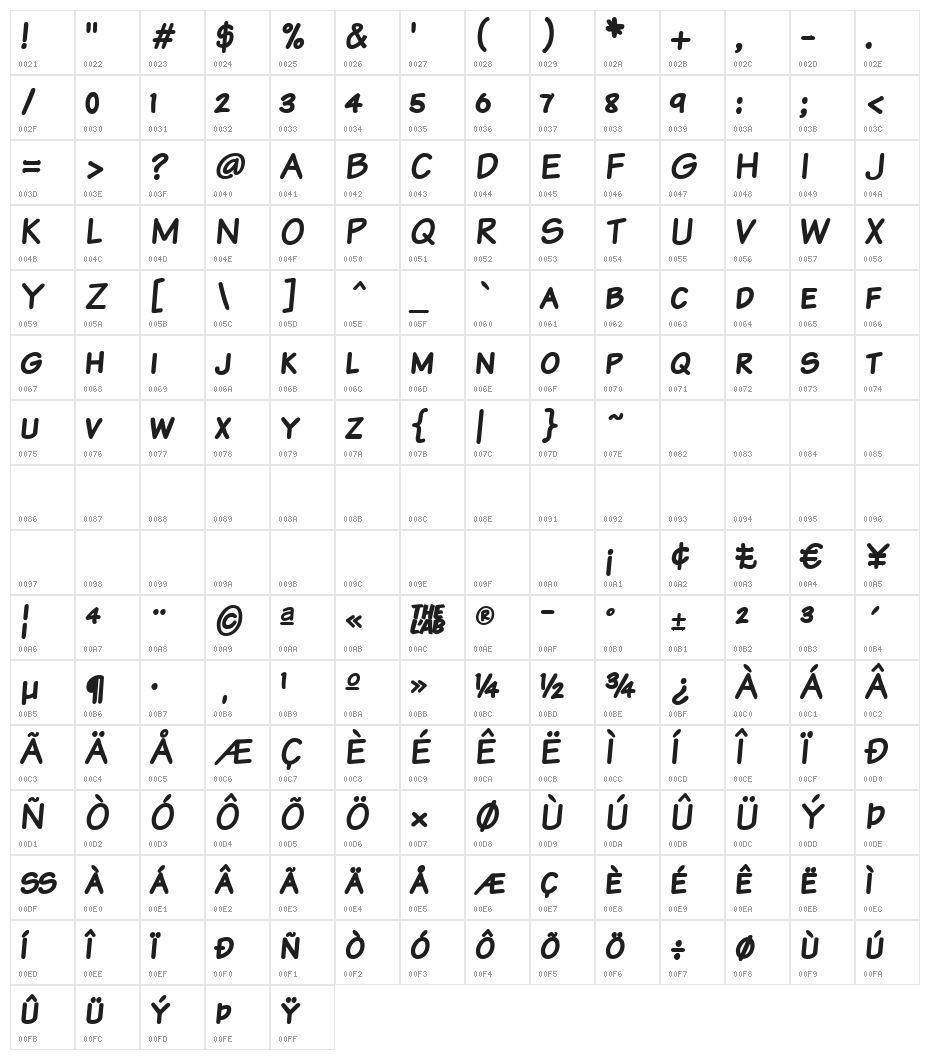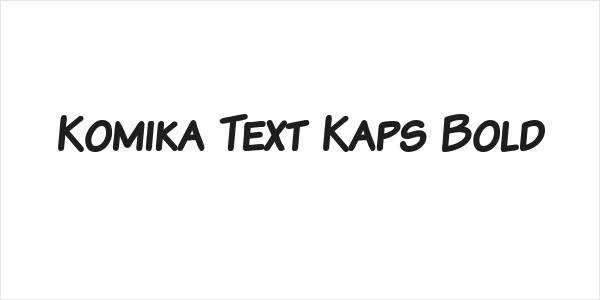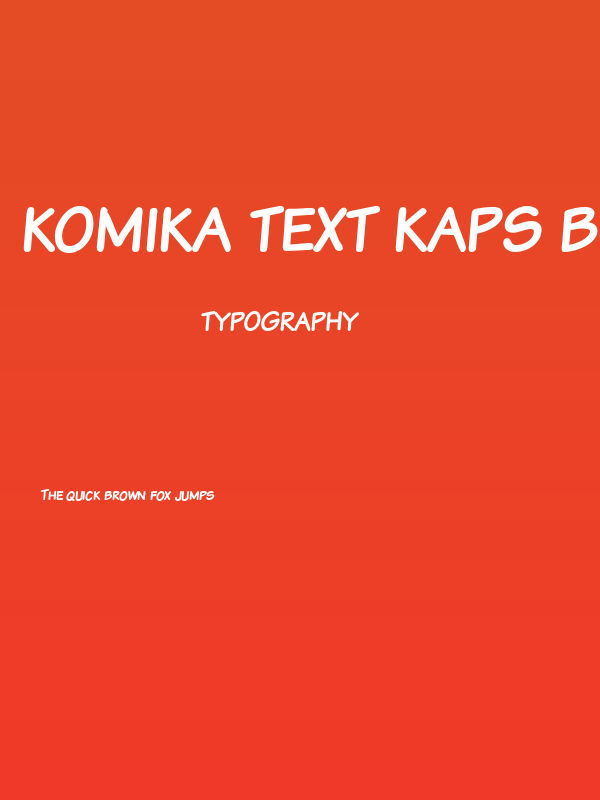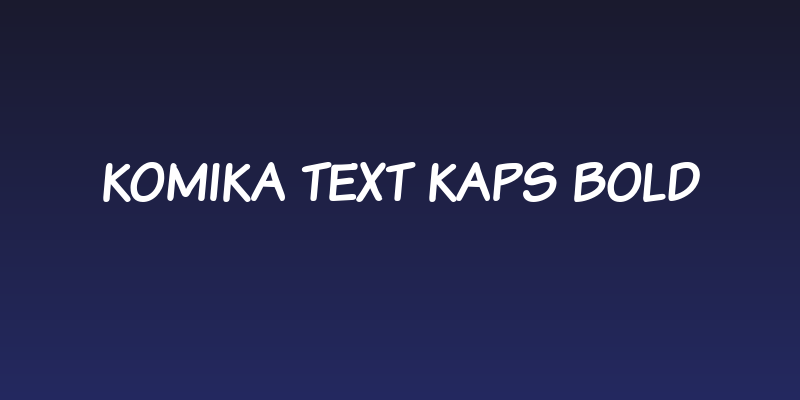
Komika Text Kaps Bold Font
Komika Text Kaps Bold Description
This font features a bold and playful style, characterized by its rounded and smooth letterforms. The uppercase and lowercase letters maintain a consistent thickness, giving it a uniform appearance. The numbers and special characters follow the same design principles, ensuring a cohesive look across all elements. The font's casual and friendly vibe makes it suitable for informal and fun projects. Its bold nature ensures high readability, making it effective for attention-grabbing headlines or titles.
| Proposed Projects | Ideal for comic books, children's books, playful branding, and casual event invitations. |